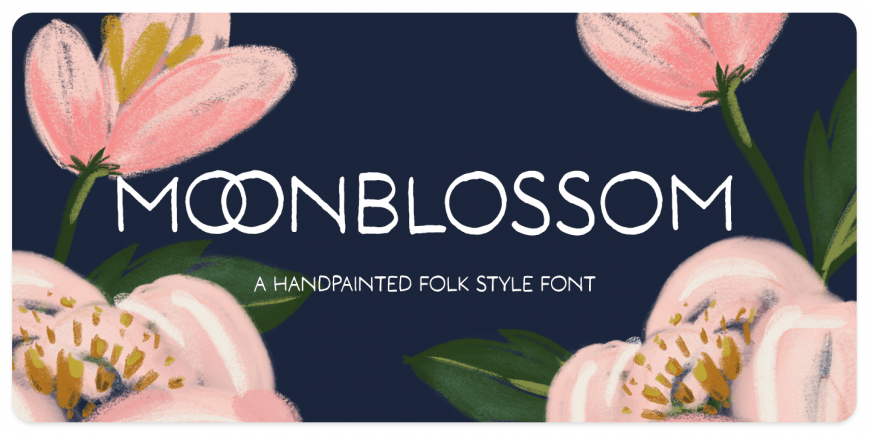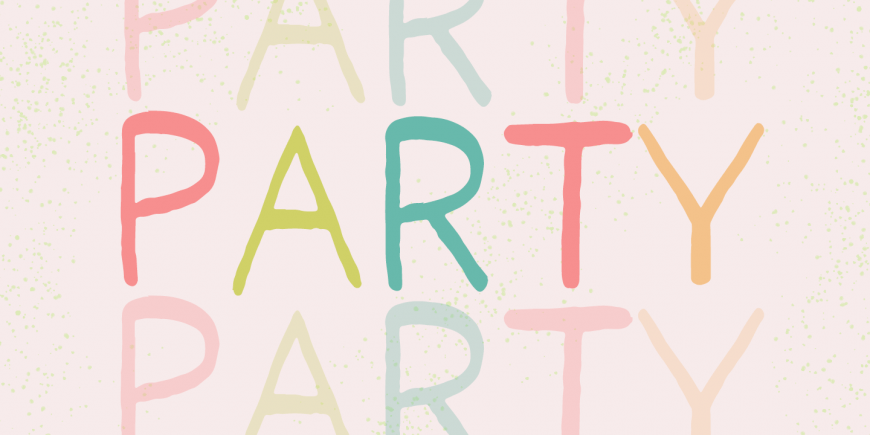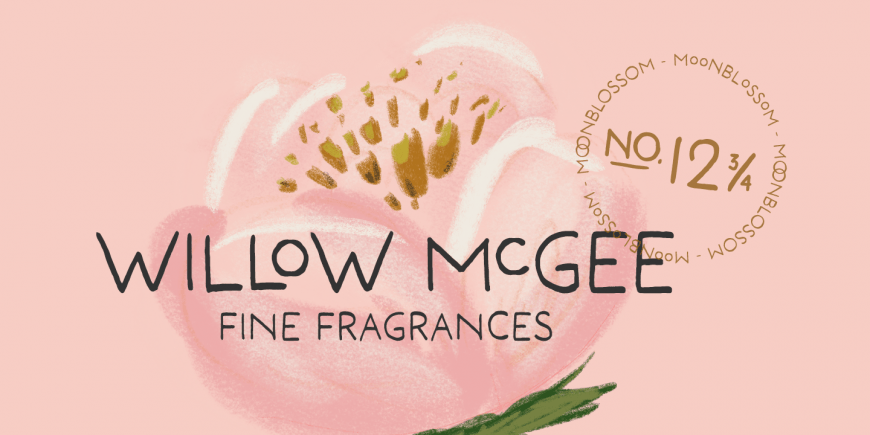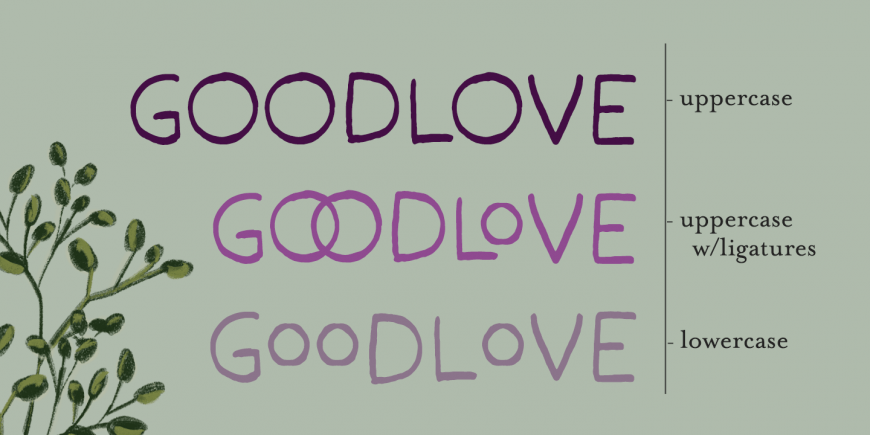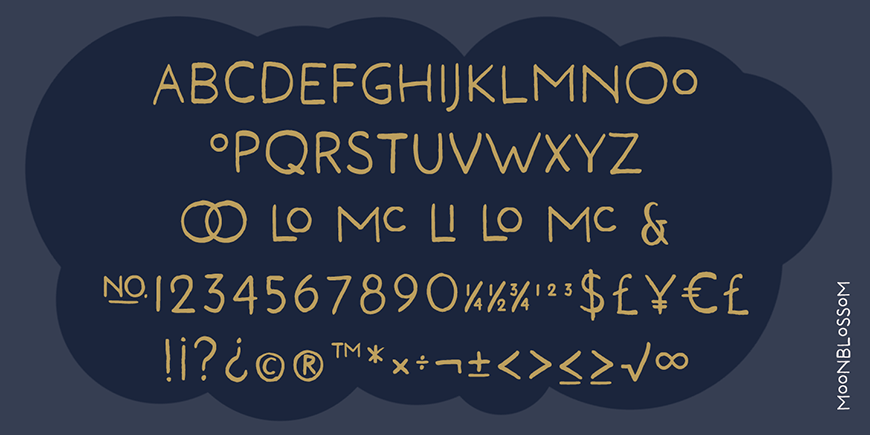
Moonblossom
Moonblossom is a handpainted brush ALL CAPS font. A simple boxy sans serif, Moonblossom is a wonderful mate with Bon Marche Script. It's perfect choice for posters, illustrations & book titles.
Features: Case selection switches the character sets. Employ Uppercase for titling, Lowercase for text. Opentype ligatures set in uppercase. Additional bonus glyphs accessible through the glyphs panel.